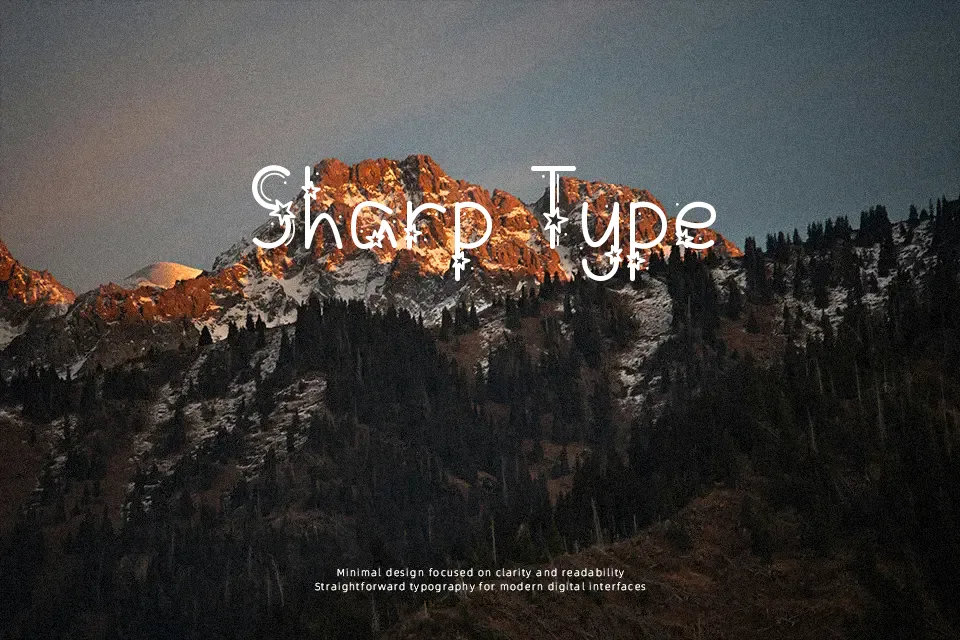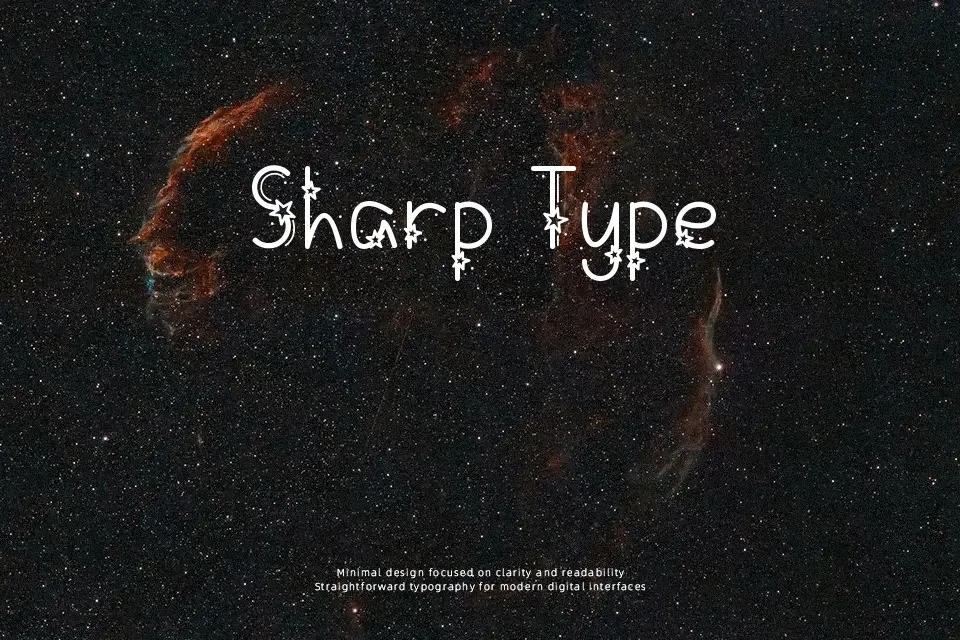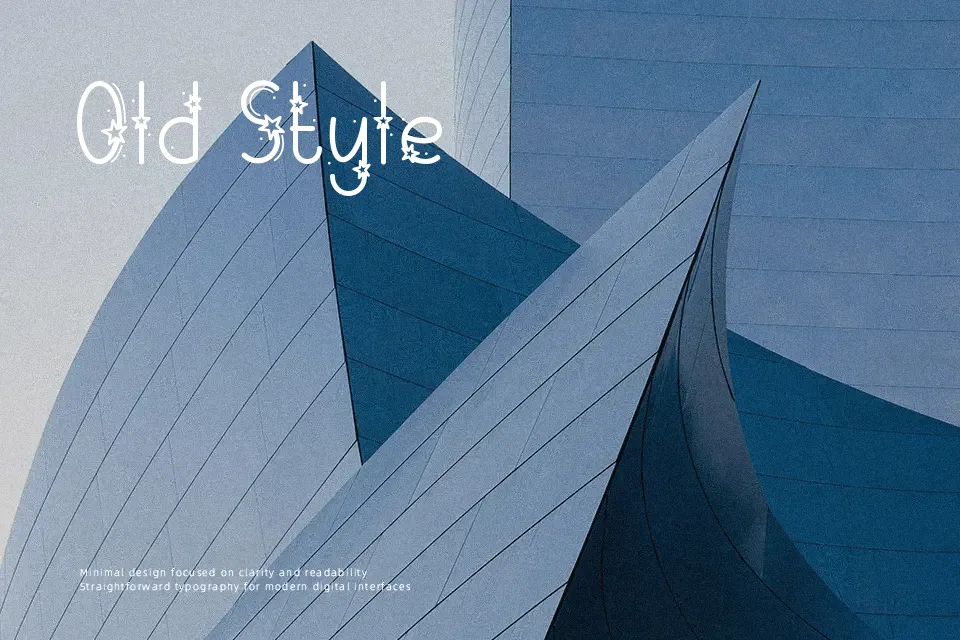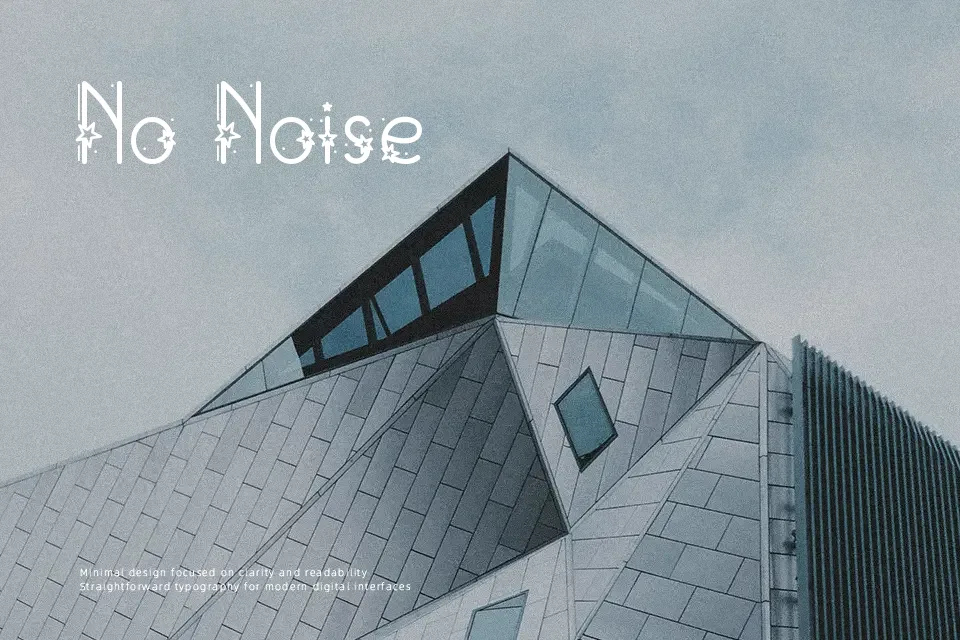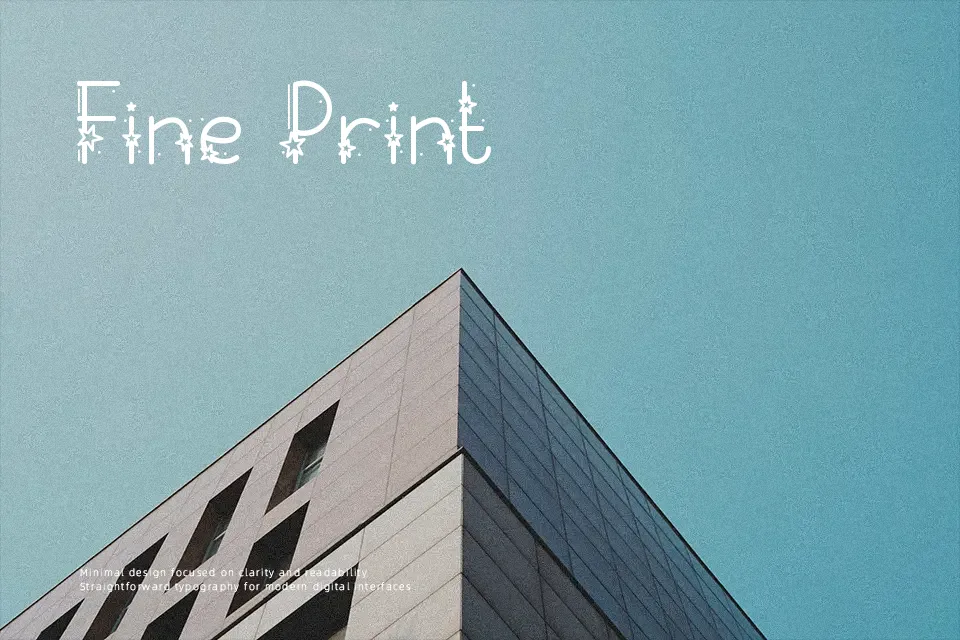
Starry Fayez Font
Starry Fayez Font presents an expressive decorative structure marked by consistent stroke weights and whimsical star cutouts embedded directly within the glyphs. The letterforms maintain balanced proportions with uniform vertical stress, creating an engaging typographic rhythm across short headline arrangements. Generous internal spacing prevents the celestial ornaments from crowding adjacent characters when rendered at prominent display scales. However, these intricate interior cutouts and delicate decorative embellishments quickly lose definition at body text sizes, making the typeface impractical for continuous paragraph reading. In poster titles and festive event stationery, the design delivers clear thematic character while preserving immediate letter recognition.
Best For: children book covers,holiday party invitations,thematic event posters,toy packaging
Not Ideal For: long paragraph text,corporate annual reports,mobile interface body text,dense spreadsheet tables
Perfect for headline, invitation, and kids, with a creative and cartoon style.